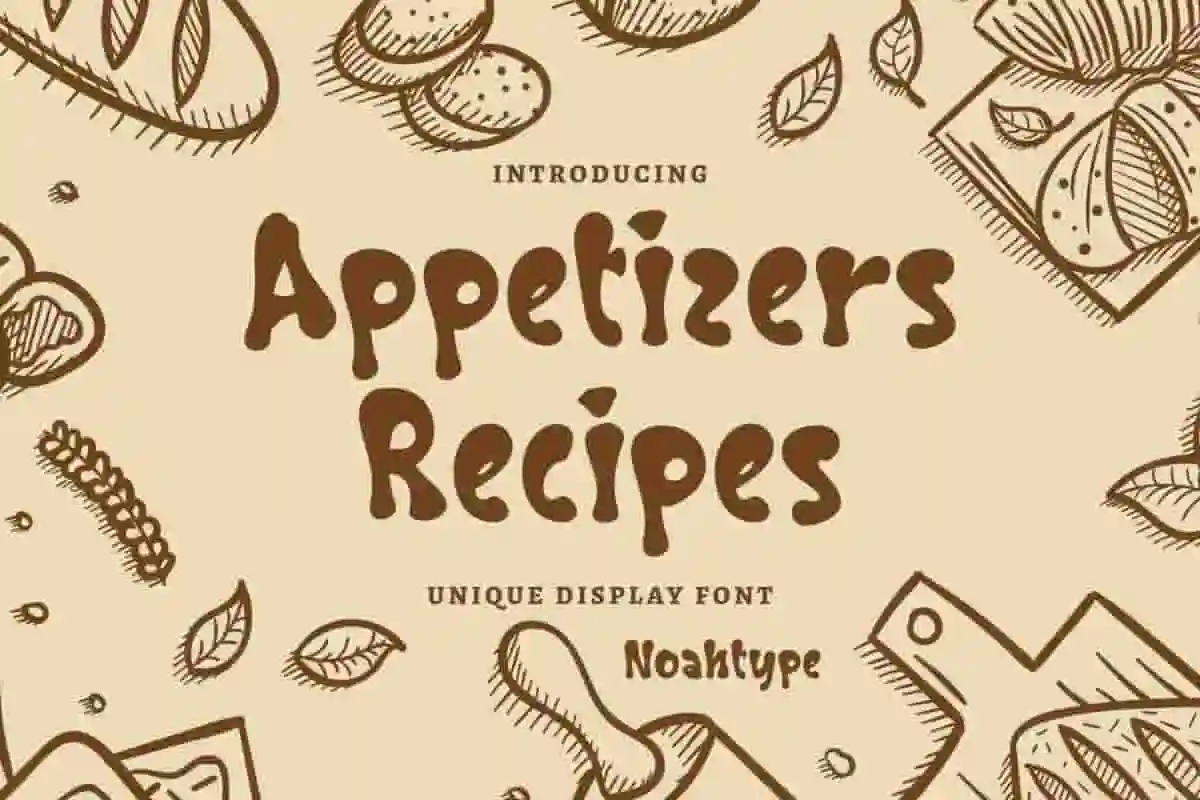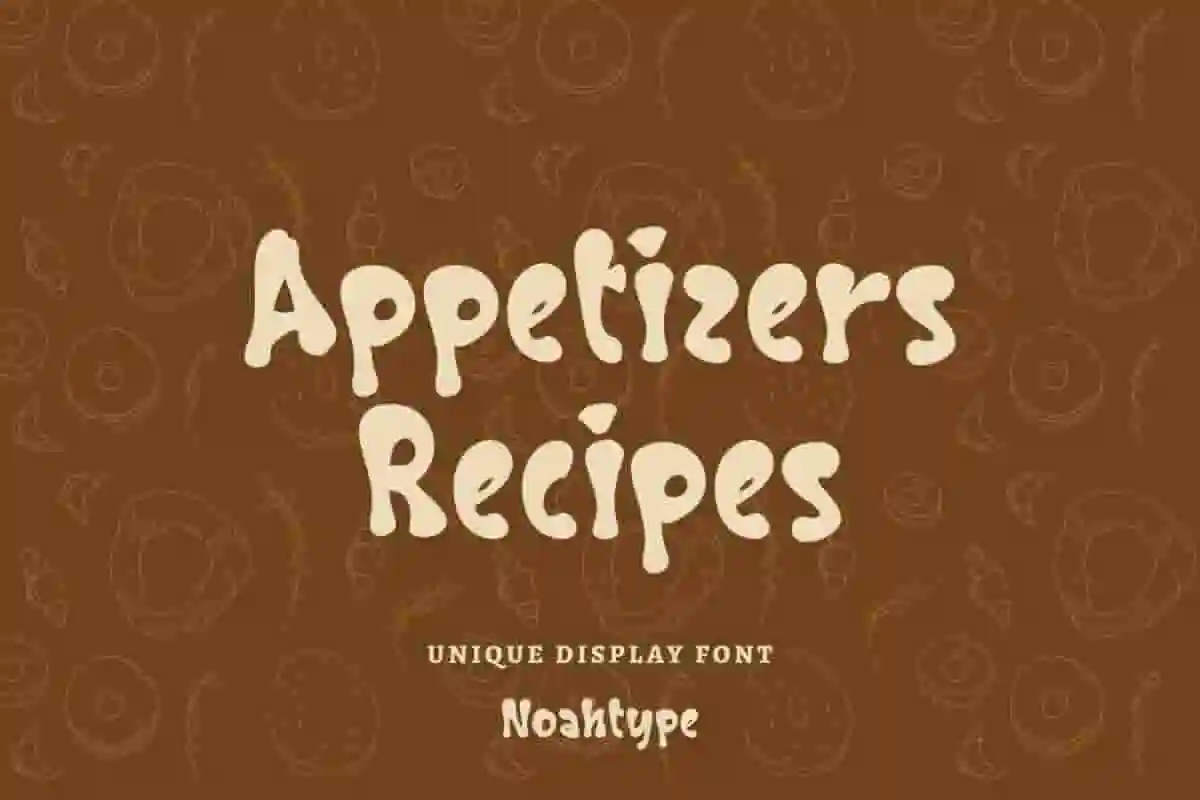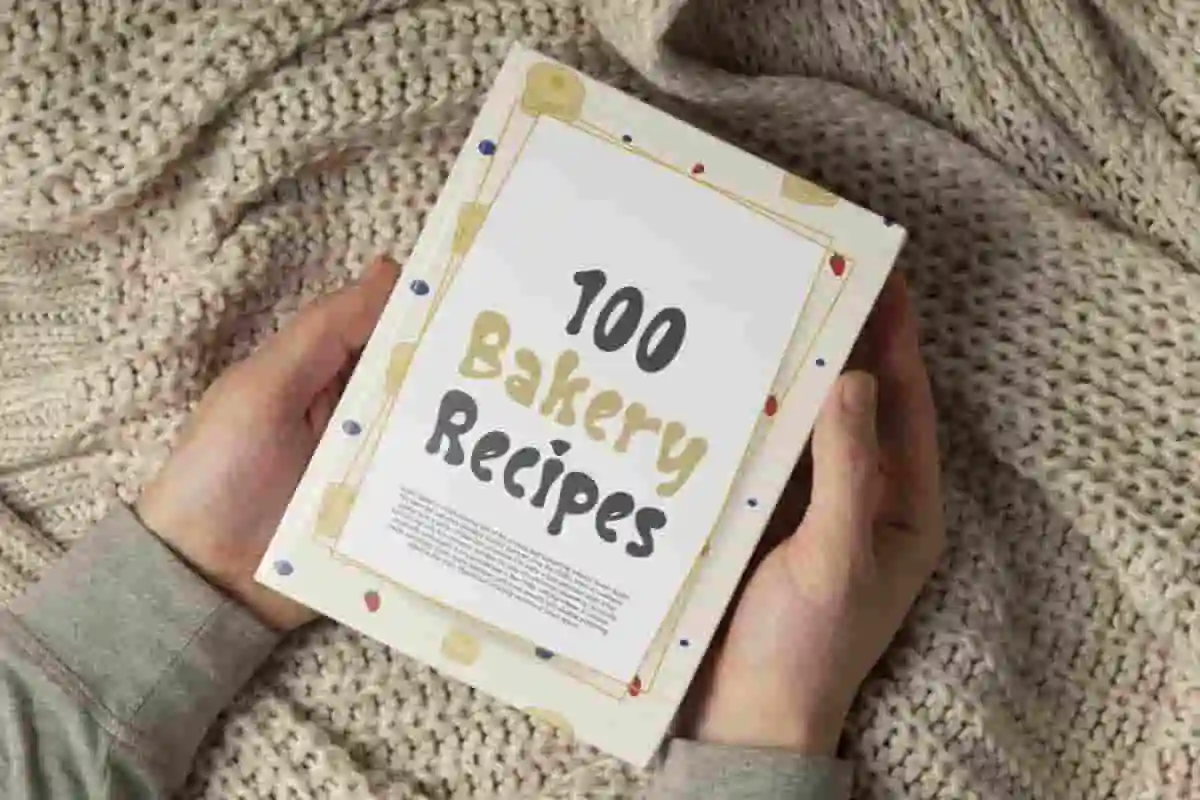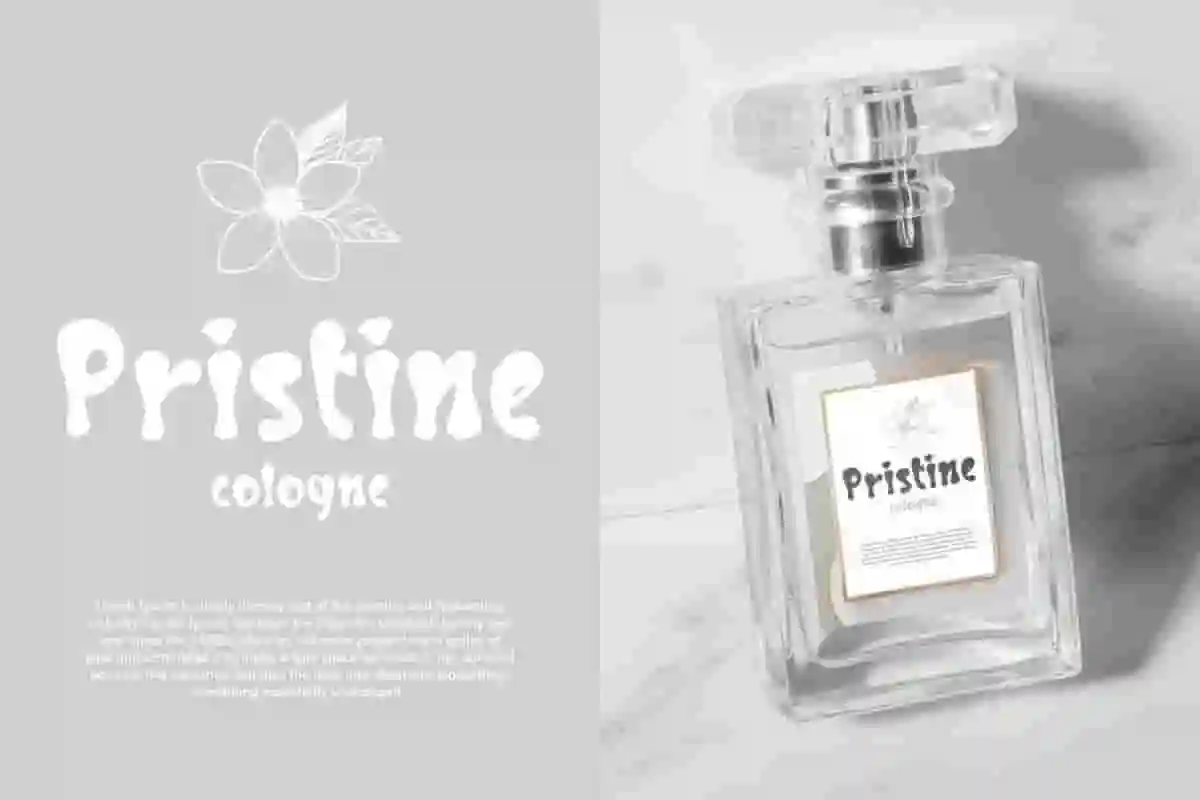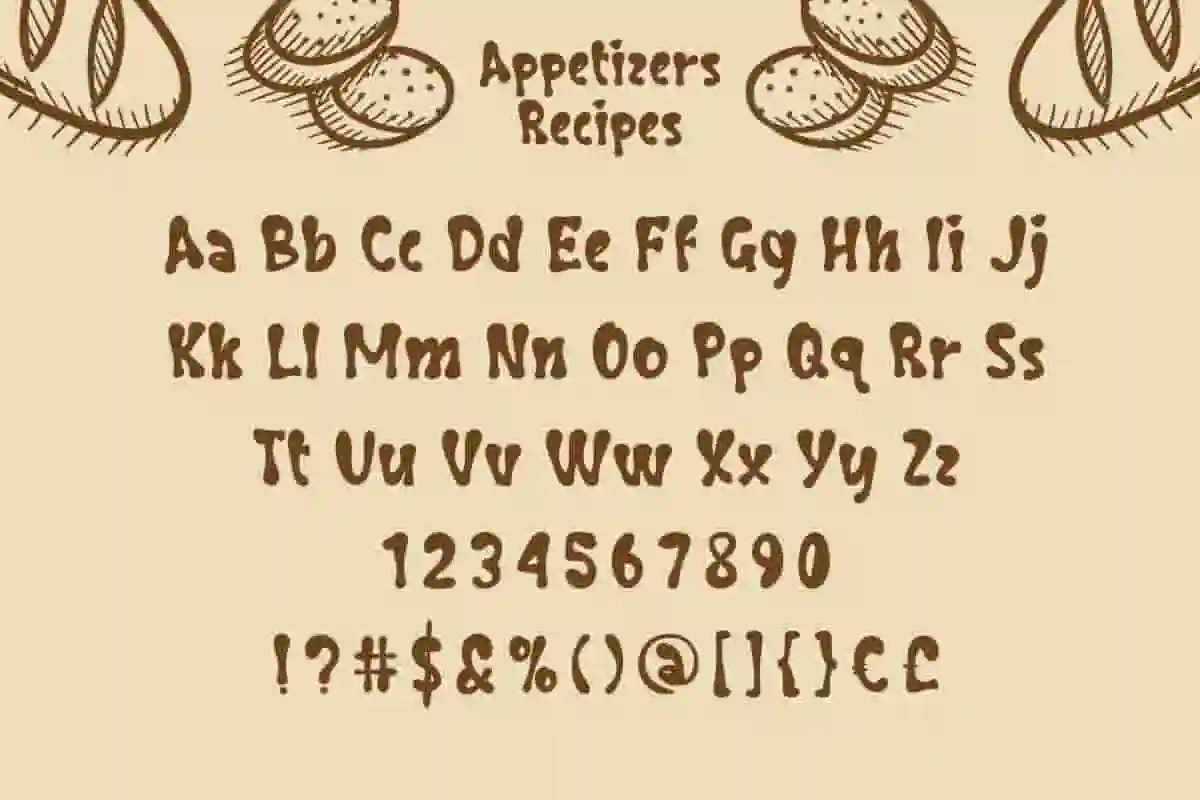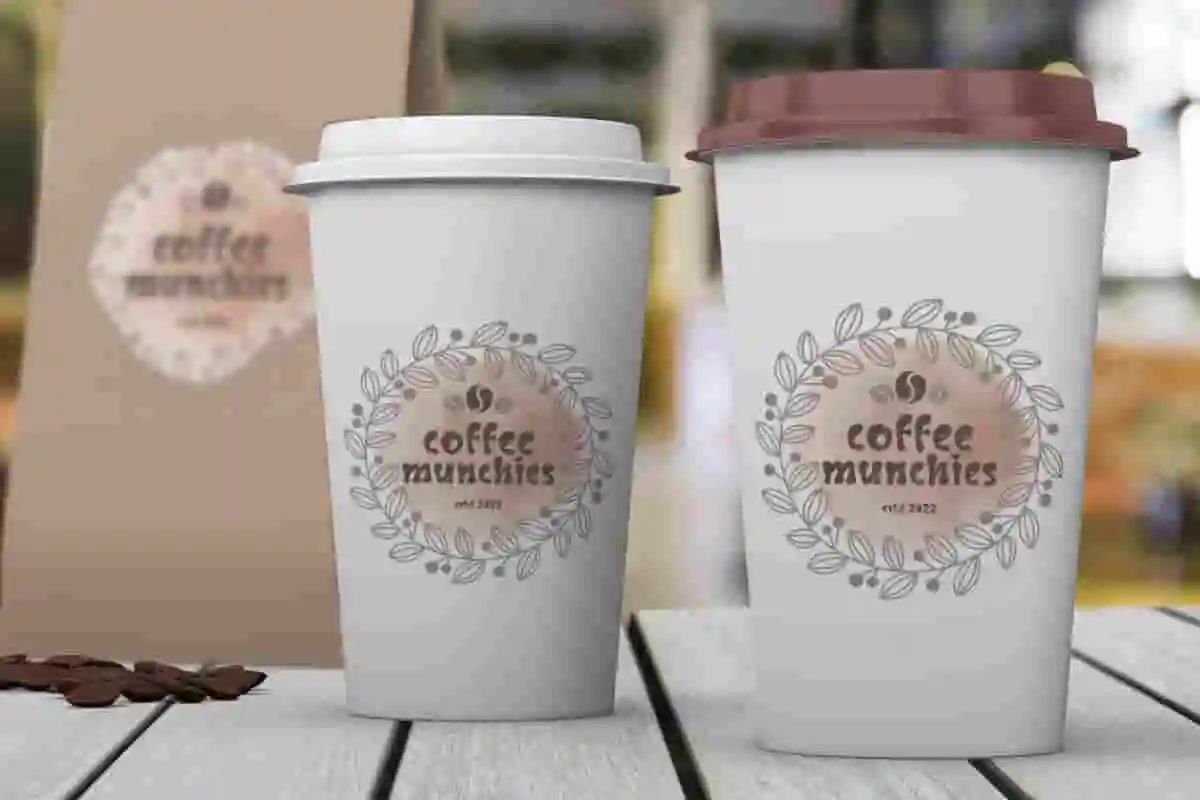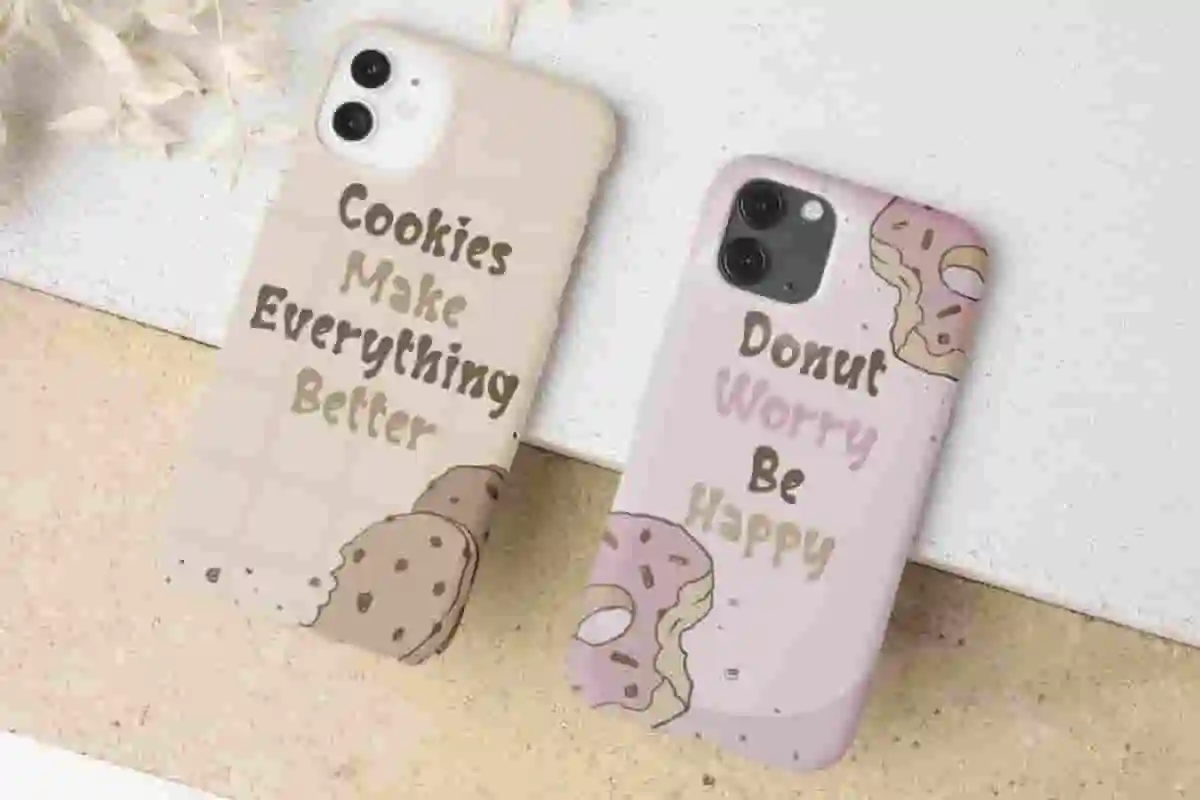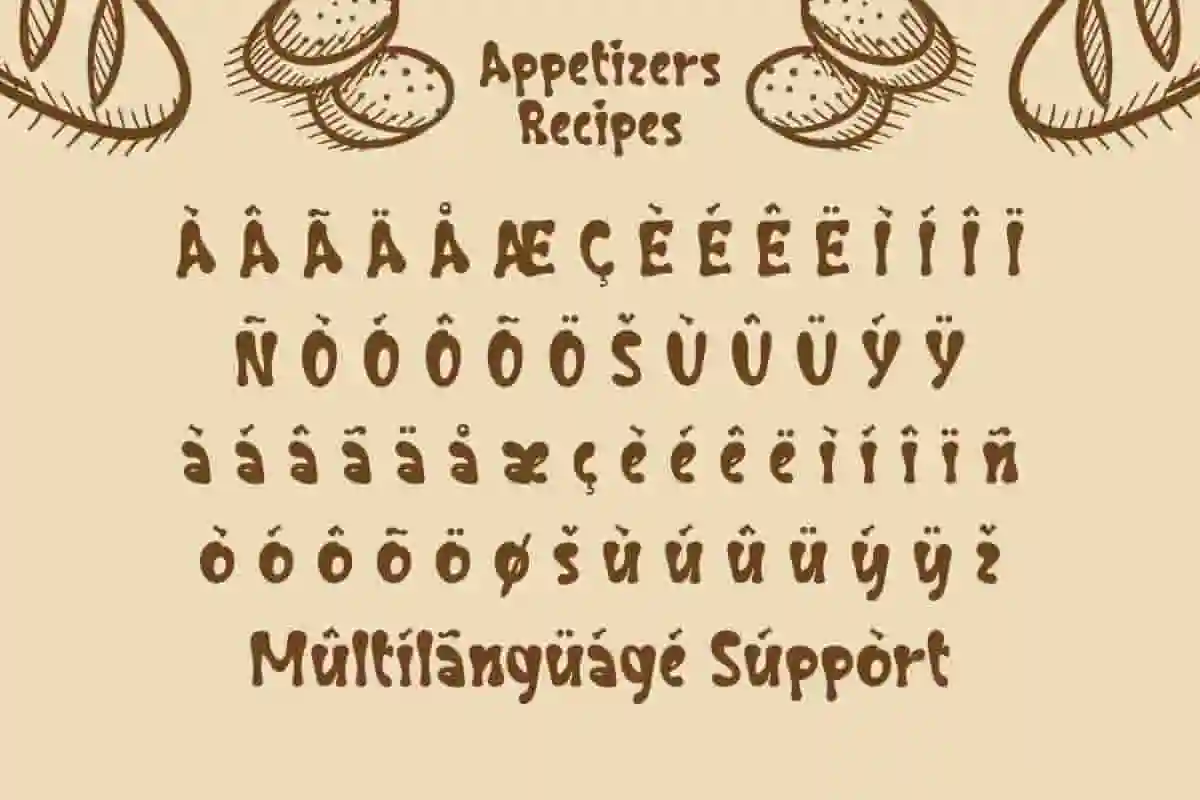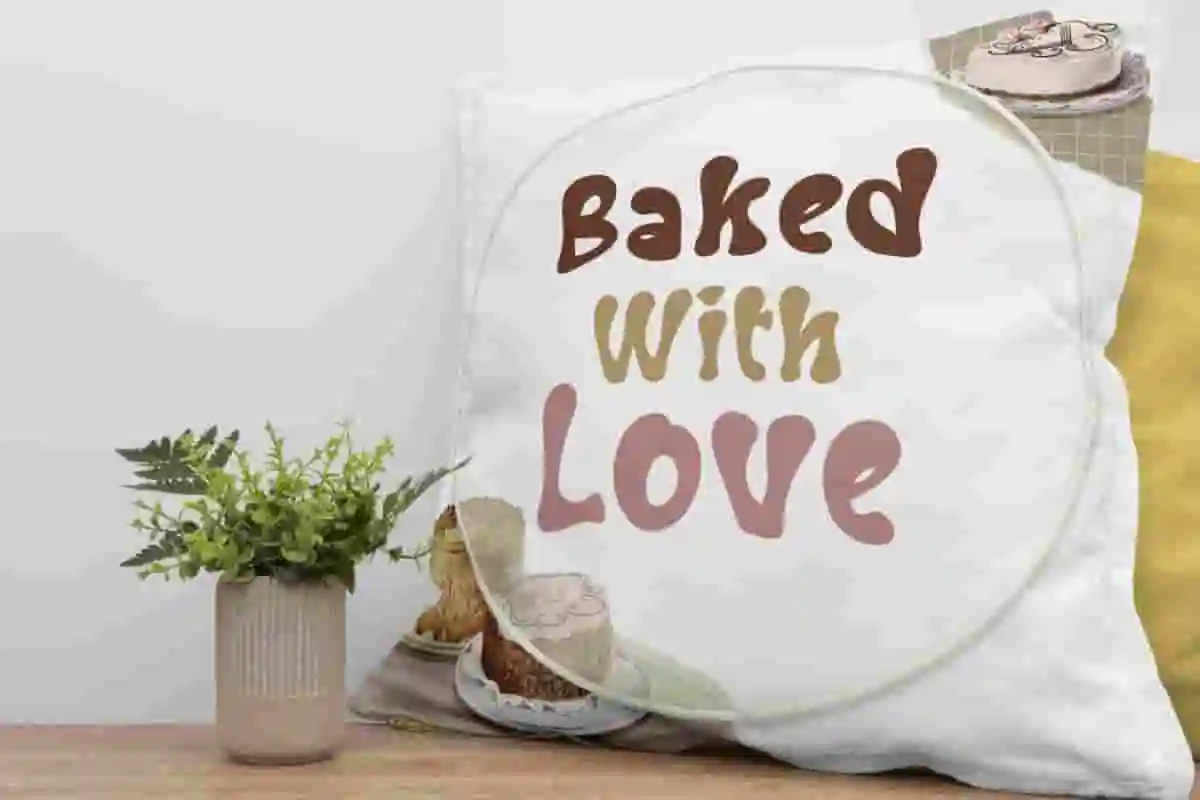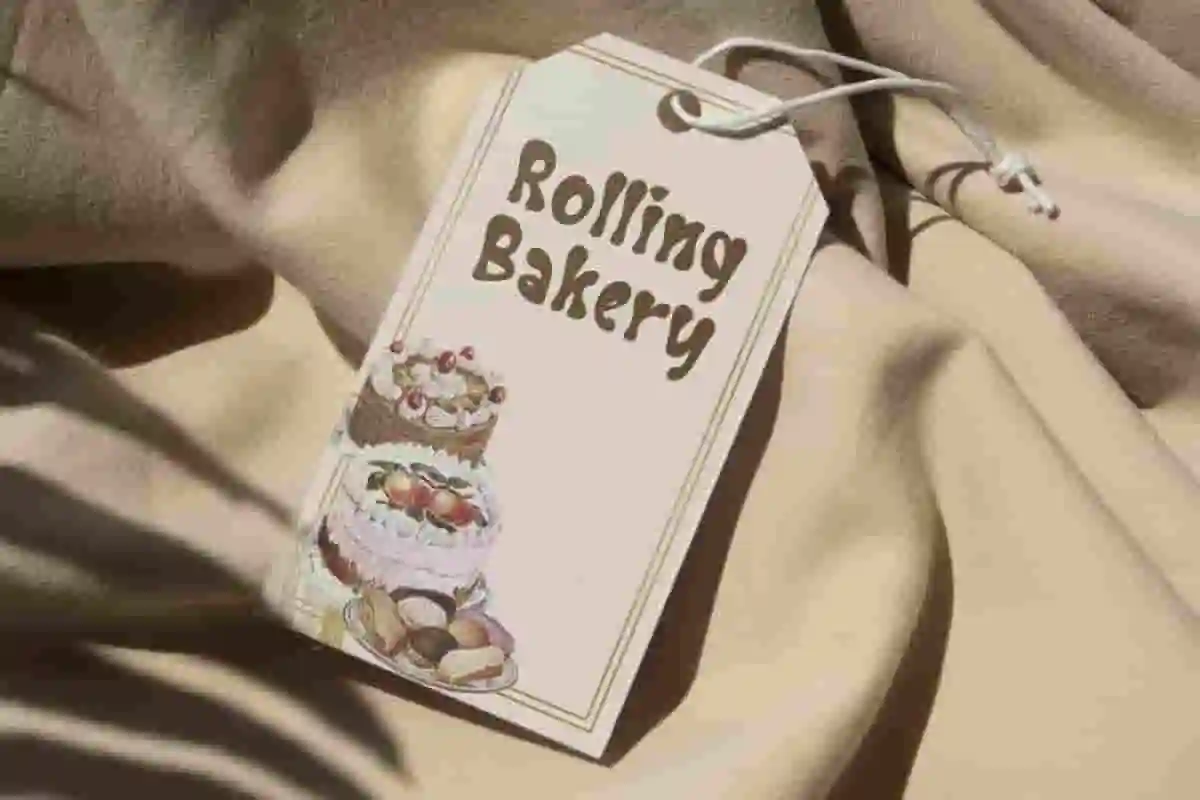
Appetizers Recipes Font is a display font inspired from kitchen and cooking activity , created by NoahType. This font has cute characters inspired by the appetizer that grabs your attention before eating the main course. It would be perfect for many industries, such as accessories, advertising, bakery and pastry, café, event or festival, fashion, handicrafts, homeware, perfume, printing, publishing, restaurant, and more!
Appetizers Recipes Font includes full set of Uppercase and Lowercase Basic Characters, Numerals and Punctuation. This stylish font would be the best choice for a variety of projects, such as cover, header, invitations, labels, menu, product packaging, screen printing, stationery, etc.
Bring a taste of charm and warmth to your designs with Appetizers Recipes Font, a delightful handwritten typeface crafted to capture the coziness of home-cooked meals and the joy of sharing food. Whether you’re creating menus, recipe books, café branding, or food packaging, this font will season your designs with personality and authenticity.